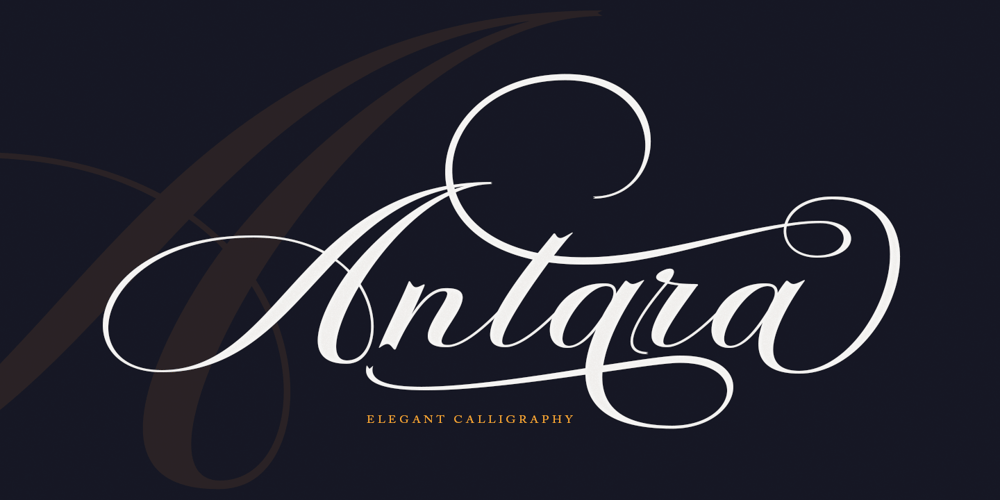
Antara Script Font Family was designed by Has Rizal and published by Hrz Studio. Antara Script contains 1 styles and family package options. Antara script is a calligraphy font that comes with very beautiful changing characters, a type of classic decorative copper script with a modern touch, designed with high detail to present an elegant style. Antara Script is attractive because the typeface is smooth, clean, feminine, sensual, glamorous, simple, and very easy to read because there are many luxurious letter connections.